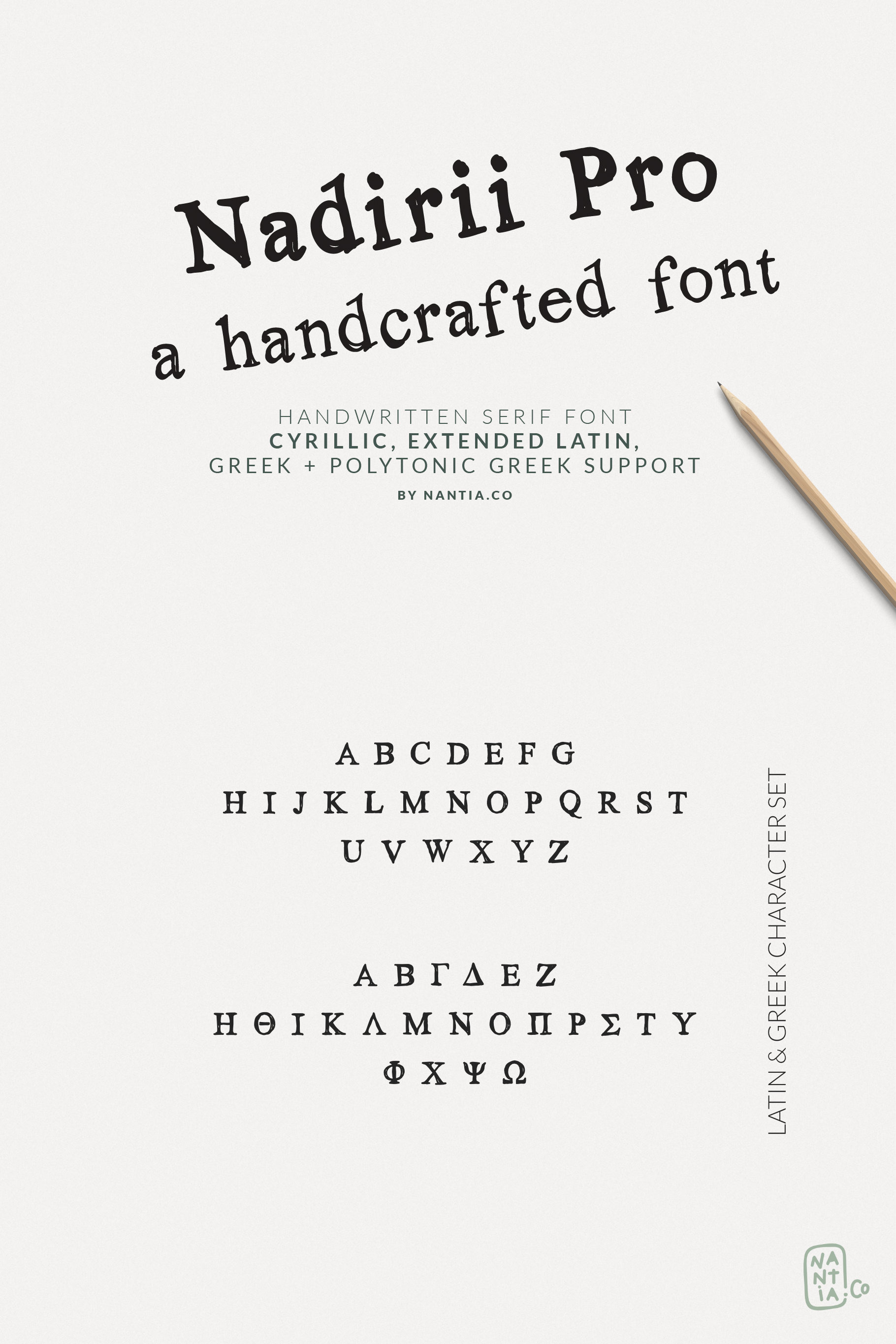
Nadirii Pro Greek, Cyrillic Font
Nadirii Pro Font | Handcrafted is a display font with support Greek / Greek polytonic, Cyrillic and extended Latin characters.
Nadirii Pro Font is a handcrafted typeface with a nostalgic touch.
This font with support for over 30 language can be a perfect match for all your food packaging projects and for branding your organic handcrafted products. It can be ideal typeface for storytellers, too! The crafty feeling of this font is pairing perfectly with illustrations and book covers.
Character set in Extended Latin, Greek, Greek polytonic, Cyrillic, punctuation marks, diacritics, and numbers.
Nadirii Pro Font supports the following languages:
Albanian, Basque, Bosnian, Breton, Catalan, Chamorro, Chichewa_nyanja, Croatian, Czech Russian Danish, Dutch, English, Estonian, Faroese, Finnish, French, Frisian, Galician, German, Greek, Greek Polytonic, Hungarian, Icelandic, Italian, Latvian, Lithuanian, Malagasy, Maltese, Norwegian, Polish, Portuguese, Romanian, Serbian, Slovak, Slovenian, Spanish, Swedish, Turkish, Welsh
Nadirii Pro Font is a Greek, Cyrillic and an Extended Latin Font and that makes it a multilingual font. You can check that on the test drive below.